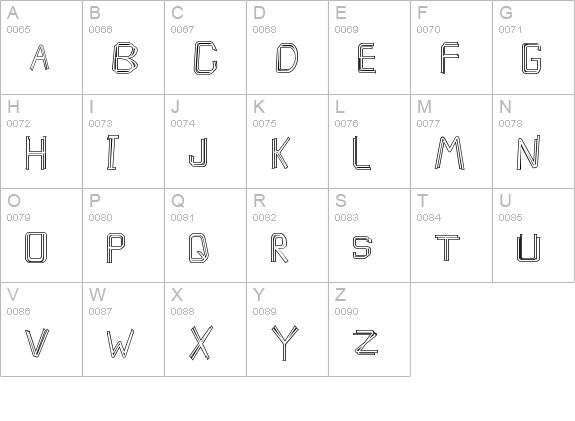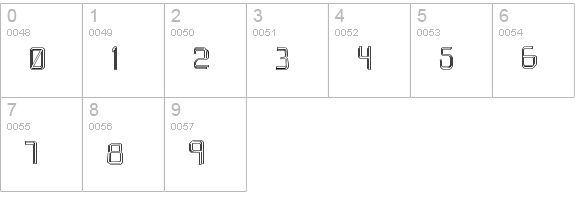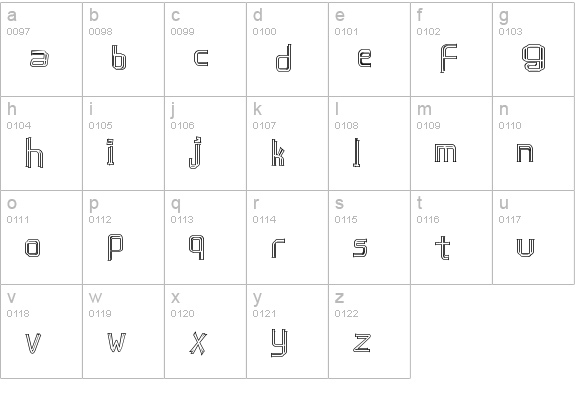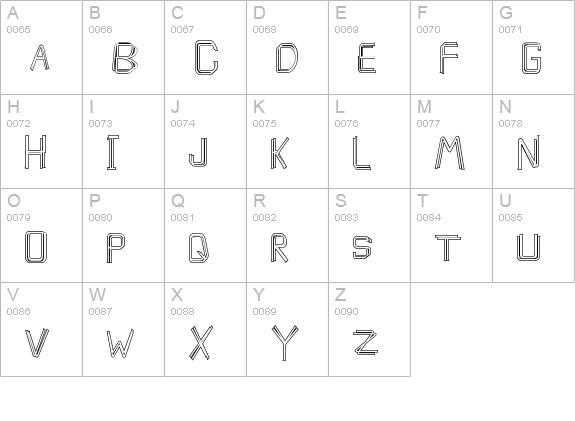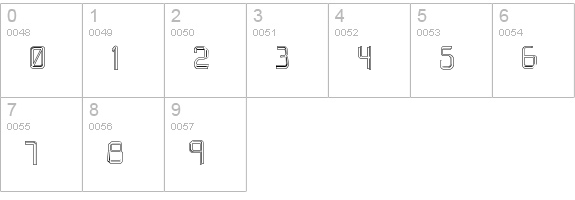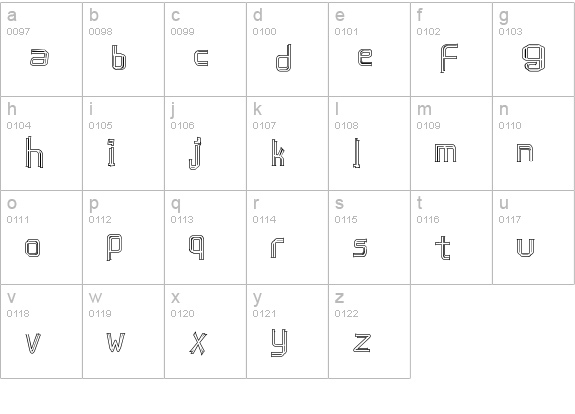
caffeen Font Details
Caffeen Font is a beautiful and versatile typeface that adds a touch of elegance and sophistication to any design project. With its clean lines and modern aesthetic, this font is perfect for creating stunning logos, branding materials, invitations, and more. But what sets Caffeen Font apart from other fonts is that it is completely free. Yes, you read that right – this amazing font is freely available to download at FontsMarket.com. Whether you're a professional designer or a hobbyist looking to add a unique touch to your personal projects, Caffeen Font is the perfect choice. With its wide range of weights and styles, Caffeen Font offers endless possibilities for creativity. From bold headlines to delicate script, this font can adapt to any design concept seamlessly. Its versatility makes it suitable for a variety of projects, including websites, packaging, posters, and social media graphics. Not only does Caffeen Font look stunning, but it also offers great legibility, ensuring that your message is communicated clearly. Its carefully crafted letterforms and balanced spacing make reading a breeze, regardless of the size or medium. Whether you're a graphic designer, a creative entrepreneur, or simply someone who appreciates beautiful typography, Caffeen Font is a must-have in your font collection. And the best part? It won't cost you a dime. Simply head over to FontsMarket.com, download Caffeen Font, and start creating beautiful designs that will captivate your audience. So why wait? Don't miss out on this incredible opportunity to enhance your designs with Caffeen Font. Download it today and unleash your creativity like never before.